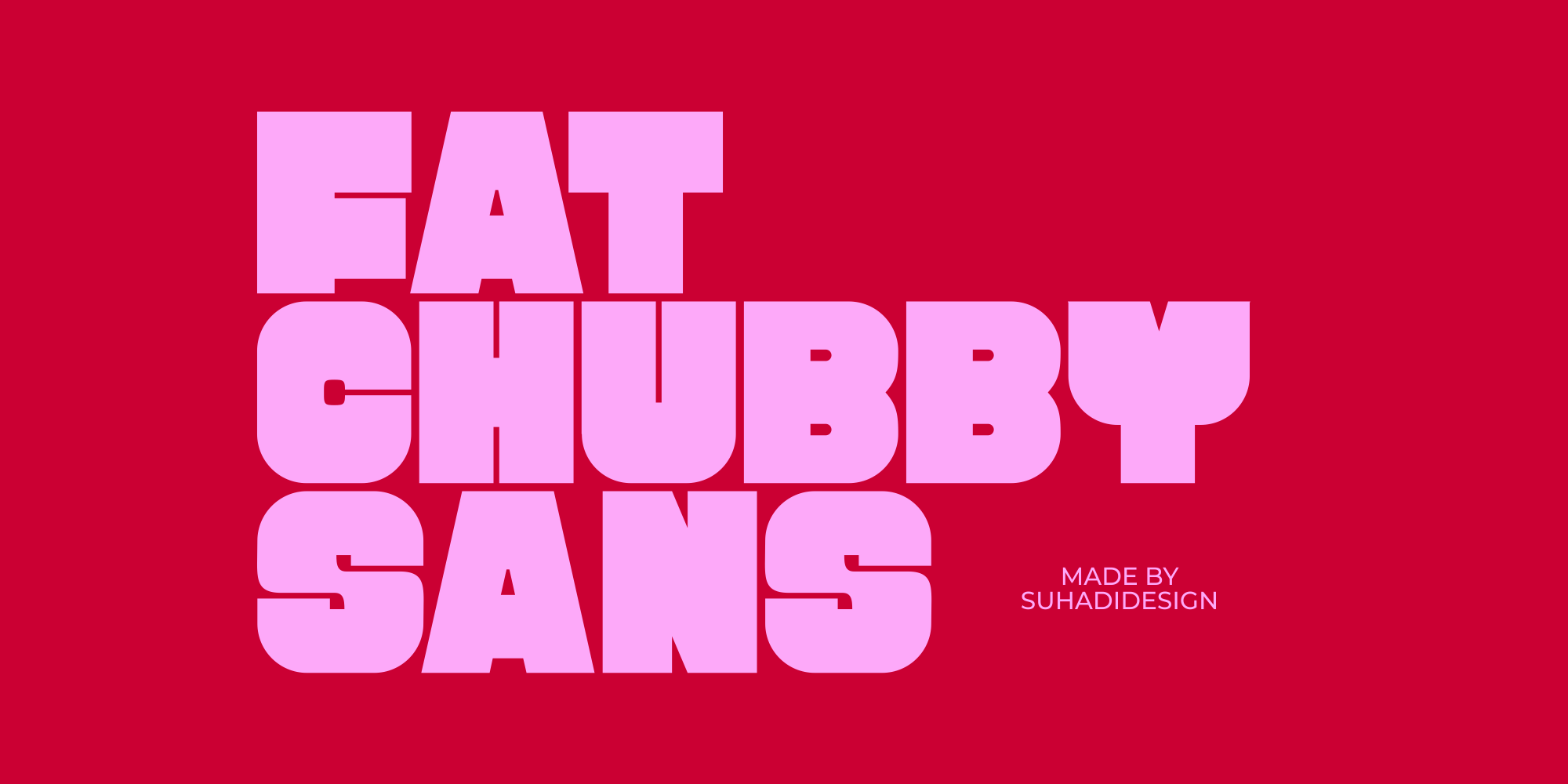
Fat Chubby Sans Font is perfect for friendly restaurant branding, playful food truck graphics, cheerful bakery signage, fun children's party invitations, cozy café menus, jovial comfort food packaging, warm family diner communications, happy ice cream shop promotions, delightful candy store materials, and welcoming community event signage.
What makes Fat Chubby Sans Font so exciting is its remarkable ability to embody warmth, comfort, and approachable friendliness through generously rounded letterforms that seem inflated with pure joy and designed to give readers the visual equivalent of a warm, welcoming hug from someone who genuinely cares about making others feel comfortable and happy. This font captures the essence of hearty satisfaction and unpretentious charm, featuring pleasantly plump characters that appear crafted by artisans who understand that the best experiences in life often come in generous portions and are shared with genuine warmth. The comfortably rounded letter shapes create an atmosphere of cozy contentment and friendly accessibility, making every word feel like an invitation to relax, smile, and enjoy life's simple pleasures without pretension or judgment.
The Fat Chubby Sans Font family includes Light, Regular, Medium, Bold, and Extra Bold weights, along with rounded and soft variations for maximum comfort appeal. Each style maintains the font's distinctive friendly character while offering versatility for different welcoming applications, from gentle menu descriptions to bold celebration headlines that announce the arrival of comfort, joy, and the kind of genuine hospitality that makes everyone feel at home.
This heartwarming typeface brings authentic comfort food aesthetics to contemporary design projects. The Fat Chubby Sans Font Free Download provides designers with an exceptional tool to create memorable brand identities that communicate warmth, approachability, and genuine friendliness. Whether you're developing comfort food restaurant branding, designing family-friendly event materials, or creating welcoming community communications, this font delivers unmatched charm and cozy authenticity.
The lovingly crafted letterforms in Fat Chubby Sans Font feature generously rounded curves and comfortable proportions that mirror the satisfying fullness of comfort food and the welcoming embrace of places where people gather to share good food and genuine conversation. Each character has been designed to maintain excellent readability while expressing the unpretentious warmth and generous spirit that make the most memorable dining experiences feel like visiting family. The font's distinctive personality makes it ideal for applications requiring genuine comfort and approachable appeal.
Food service and hospitality professionals appreciate how Fat Chubby Sans Font instantly establishes friendly credibility and comfort food authenticity while appealing to customers seeking genuine warmth and the kind of unpretentious hospitality that makes ordinary meals feel like special occasions. The comprehensive character set includes food symbols, comfort decorations, friendly elements, and extensive international language support, ensuring global compatibility while maintaining its distinctive chubby identity. This makes it an invaluable resource for restaurants, bakeries, food services, and any organization seeking typography that embodies the universal appeal of comfort food, genuine hospitality, and the kind of generous spirit that reminds us that the best things in life are often simple, satisfying, and shared with others who understand that true nourishment feeds both body and soul.